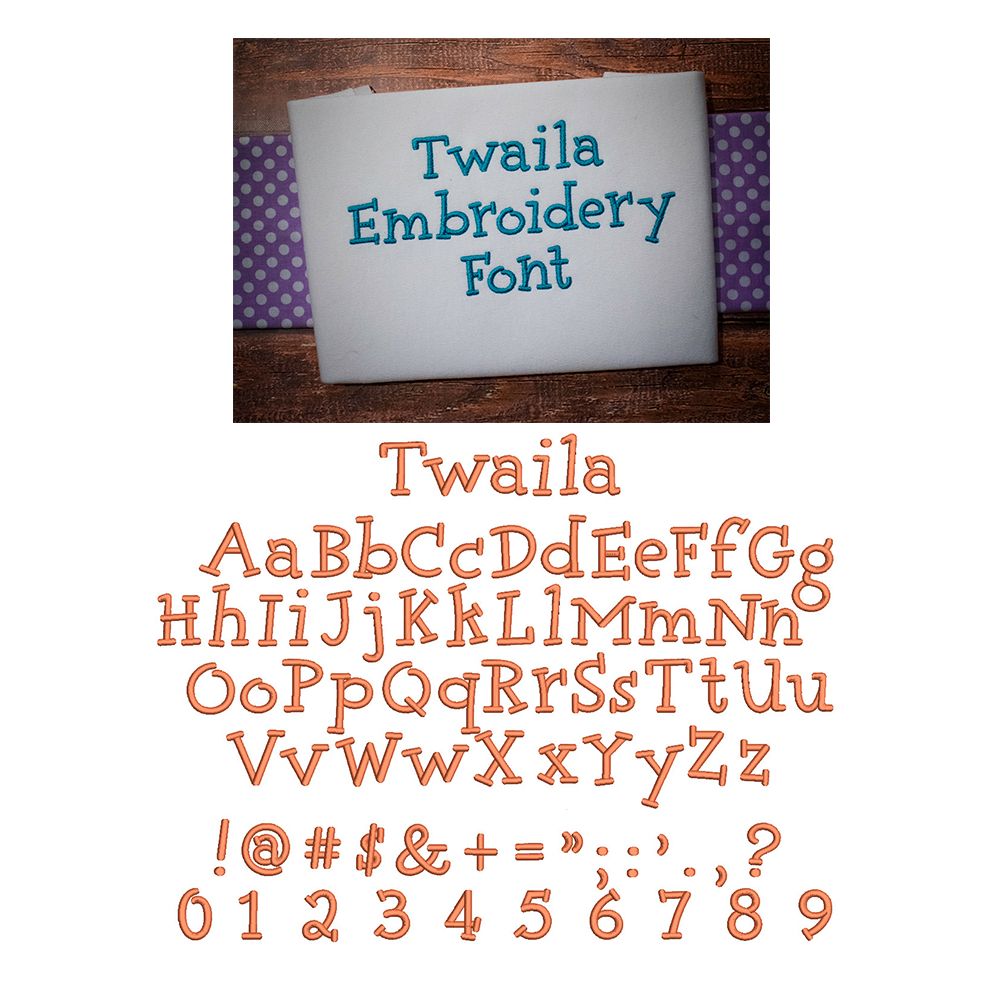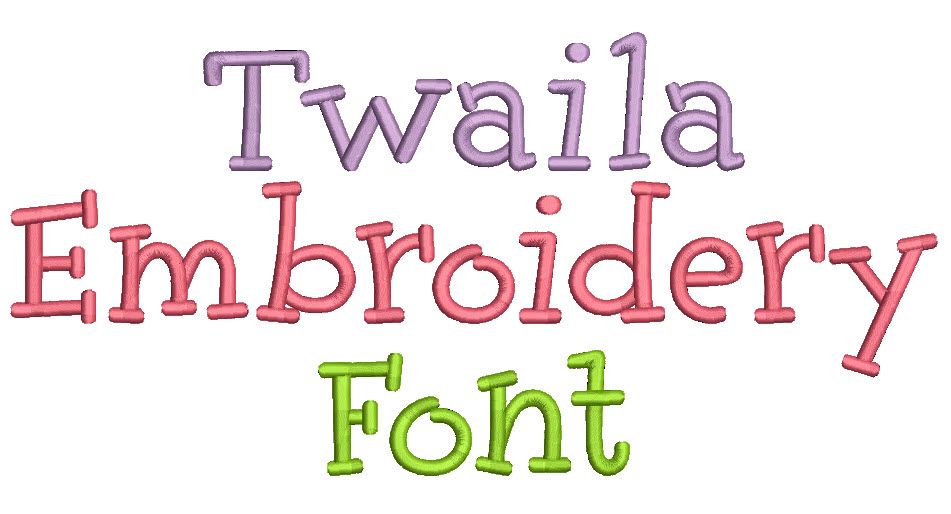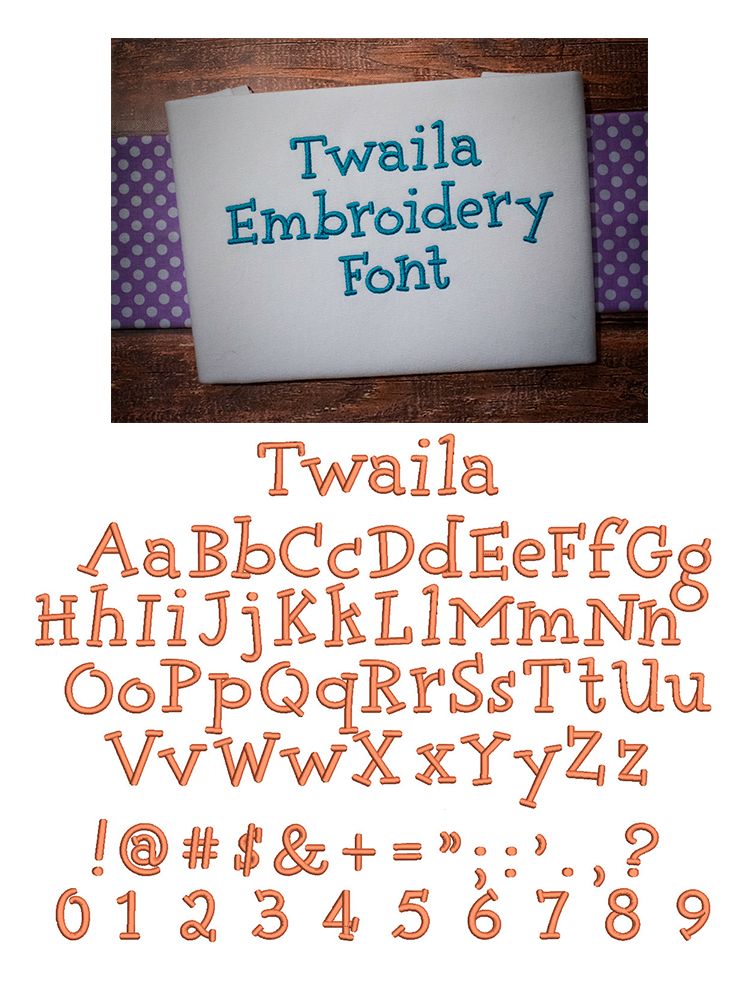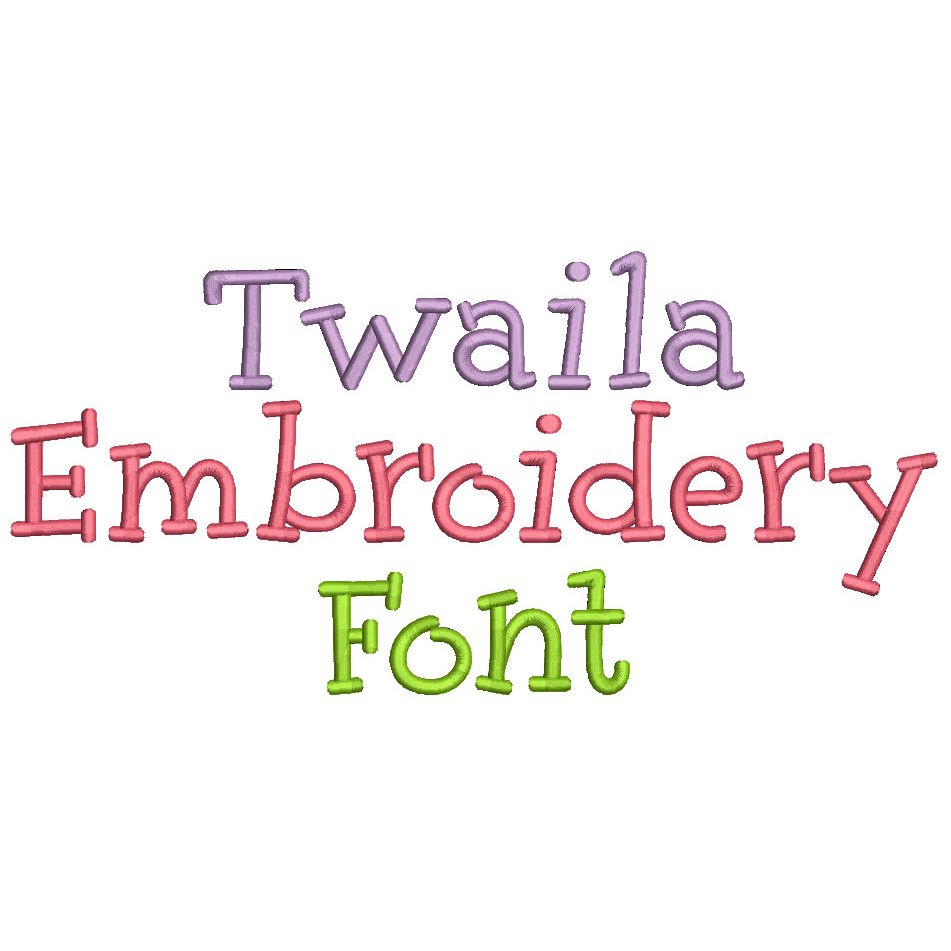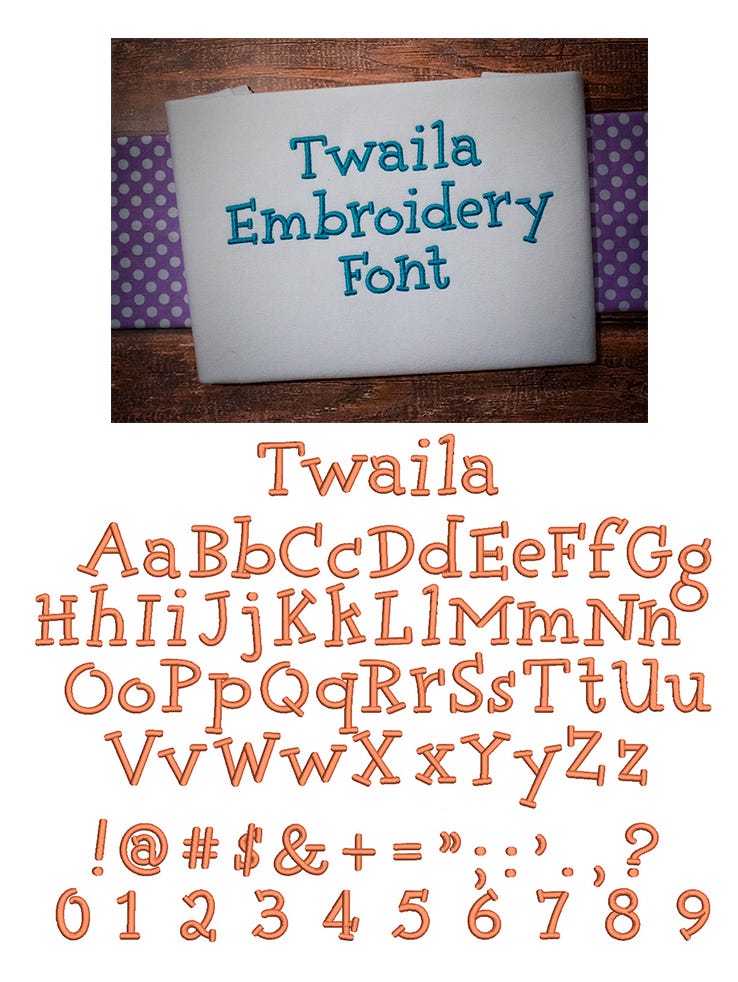
Twaila Satin Stitch Embroidery Font
Adorable font great for children's projects!  All of our font alphabets are 100% manually digitized to bring you maximum stitch quality.